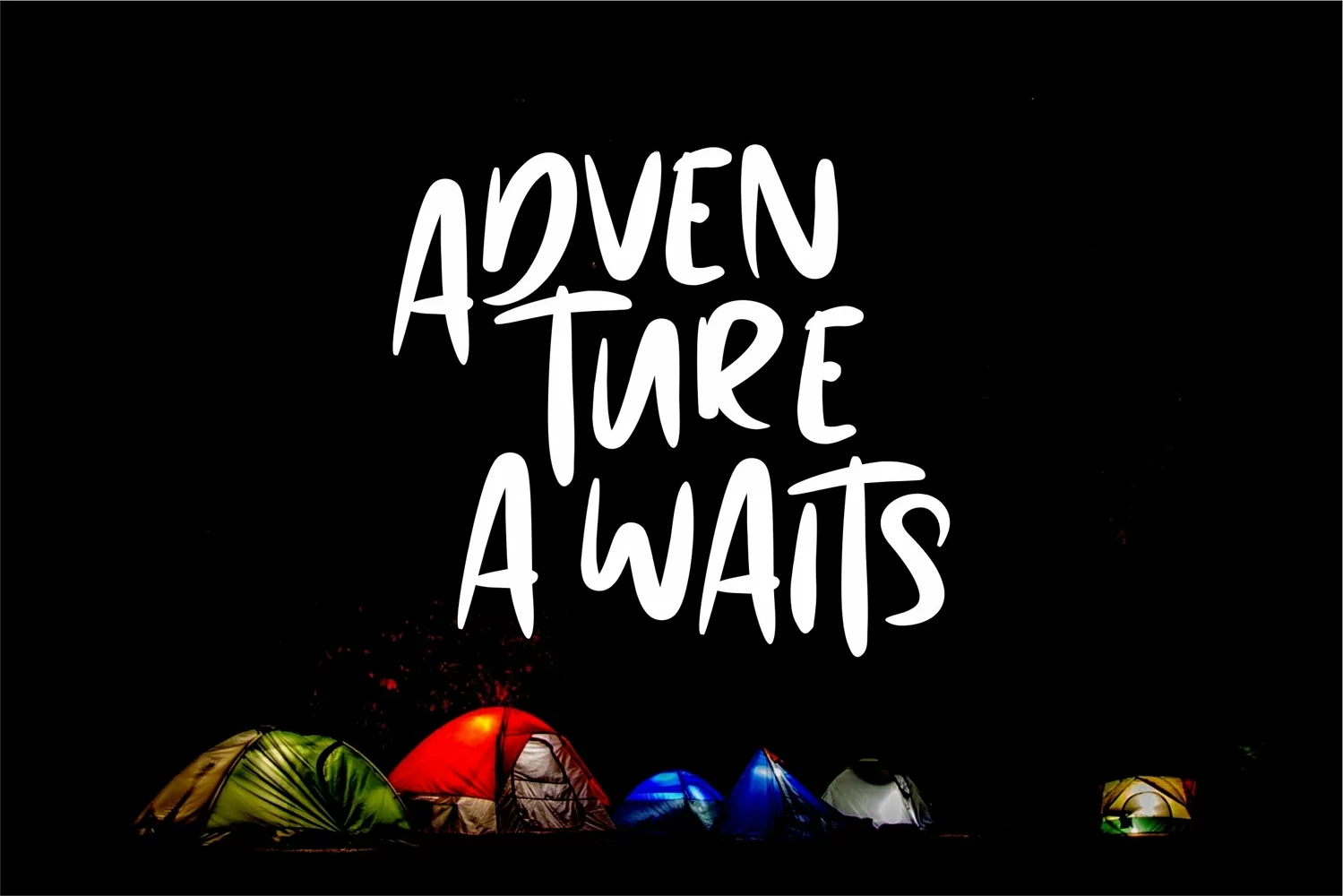
**Merida - Display Font** with a best style, So suitable on your template, like
Stylistic Alternates, Contextual Alternate, SWASH and Ligature. The Open Type features can be
Merida